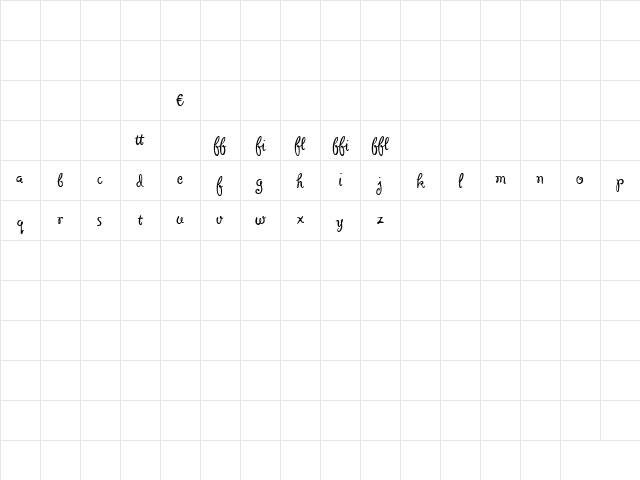
CafeMimiMVBALT Regular Free Font
CafeMimiMVBALT Regular
Design Context for CafeMimiMVBALT
CafeMimiMVBALT is a composed and adaptable typeface that performs quietly and consistently across a wide range of design contexts.
Pro Tip: Use CafeMimiMVBALT in both headline and body roles to test its range before committing to a single application.